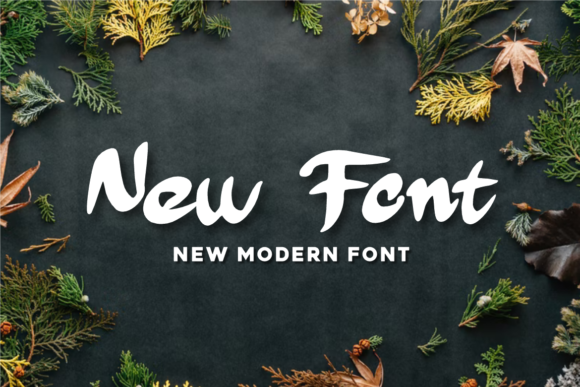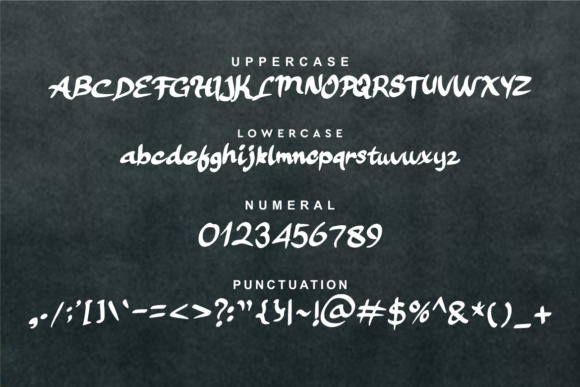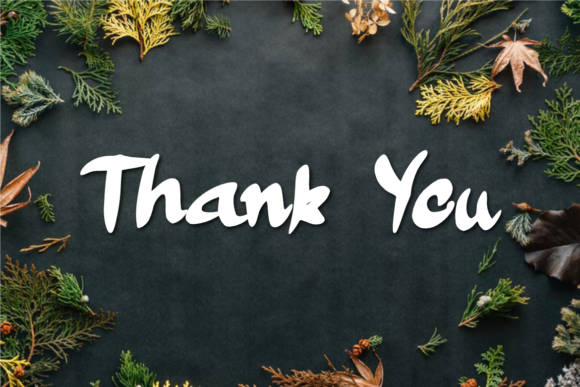
Discover the Elegance of Garitava Font: Elevate Your Designs with Style
In the world of typography, fonts play a crucial role in conveying the message and aesthetic of a brand or design. For those seeking a touch of elegance and modernity, the Garitava Font is an excellent choice. This trendy and fashionable handwritten font has been making waves in the design community, and for good reason. Defined by its smooth curves and versatile appeal, Garitava is perfect for fashion branding, editorial designs, and a wide range of creative projects.
The Characteristics of Garitava Font
Garitava Font is distinguished by its unique blend of casual elegance and modern sophistication. Its smooth, flowing curves give it a friendly yet refined appearance, making it suitable for a variety of applications. Here are some key characteristics that set Garitava apart:
- Smooth Curves: The defining feature of Garitava is its smooth, fluid curves. These curves lend the font a soft, approachable feel that can add a touch of warmth to any design.
- Handwritten Style: Despite its smooth curves, Garitava retains a handwritten feel. This gives it a personal, authentic look that can help brands connect with their audience on a more intimate level.
- Versatility: Garitava is incredibly versatile. It can be used in a range of contexts, from fashion branding and editorial designs to packaging and digital media.
- Elegance: The font exudes a sense of elegance and sophistication. This makes it an excellent choice for designers looking to add a touch of class to their work.
Applications of Garitava Font
The versatility of Garitava Font makes it suitable for a wide range of applications. Here are some of the most popular uses:
- Fashion Branding: Garitava’s elegant and modern appearance makes it a perfect fit for fashion brands. It can be used in logos, marketing materials, and packaging to convey a sense of style and sophistication.
- Editorial Designs: For editorial projects, such as magazines, blogs, and newspapers, Garitava can add a touch of elegance and refinement. It’s particularly effective for headings, titles, and pull quotes.
- Digital Media: In the digital realm, Garitava can be used in website design, social media graphics, and digital advertising. Its clean lines and smooth curves ensure it looks great on both desktop and mobile devices.
- Crafting and DIY Projects: For crafters and DIY enthusiasts, Garitava can add a professional touch to handmade products, such as labels, cards, and posters.
Why Choose Garitava Font?
With so many fonts available, why should designers and crafters choose Garitava? Here are a few compelling reasons:
- Unique Style: Garitava offers a unique blend of modernity and elegance. Its smooth curves and handwritten style set it apart from more traditional fonts.
- Easy to Read: Despite its elegant appearance, Garitava is highly legible. This makes it suitable for both headings and body text.
- Customizable: Garitava can be easily customized to fit the needs of your project. Whether you want to adjust the size, color, or spacing, this font adapts well to different design requirements.
- Time-Saving: Using a pre-designed font like Garitava can save you a significant amount of time. Instead of spending hours designing a custom font, you can achieve professional results quickly and efficiently.
- Choose the Right Size and Color: Select a size and color that fits your design. Garitava works well in a variety of sizes, from large headings to smaller body text.
- Experiment with Pairings: Garitava can be paired with a range of other fonts. Experiment with different combinations to find the one that works best for your project.
Garitava Font is a versatile and stylish addition to any design project. Its smooth curves, elegant appearance, and versatility make it suitable for a wide range of applications, from fashion branding and editorial designs to digital media and crafting. By incorporating Garitava into your projects, you can add a touch of sophistication and modernity that will elevate your designs to the next level. So why wait? Download Garitava Font today and discover the difference it can make in your work.